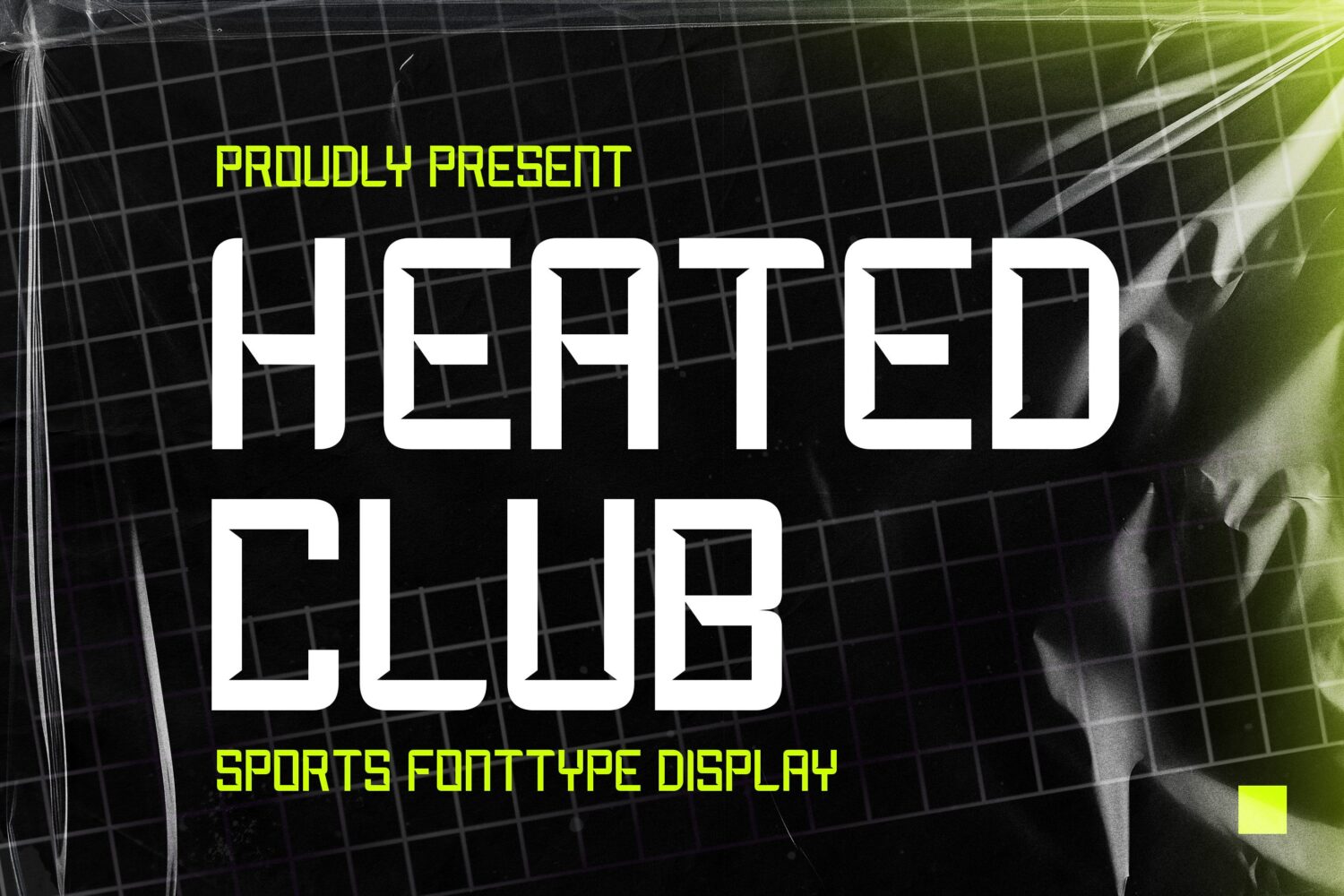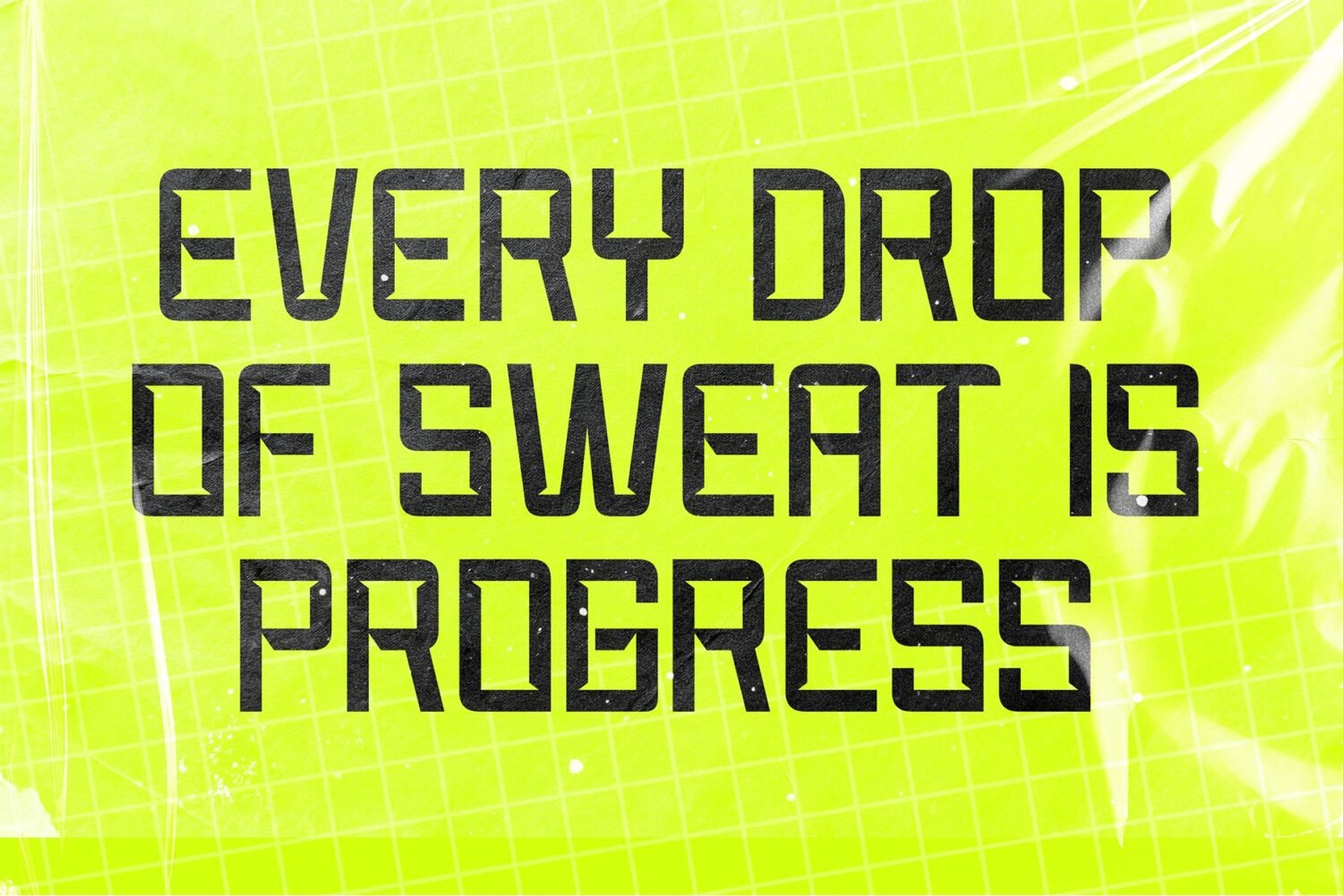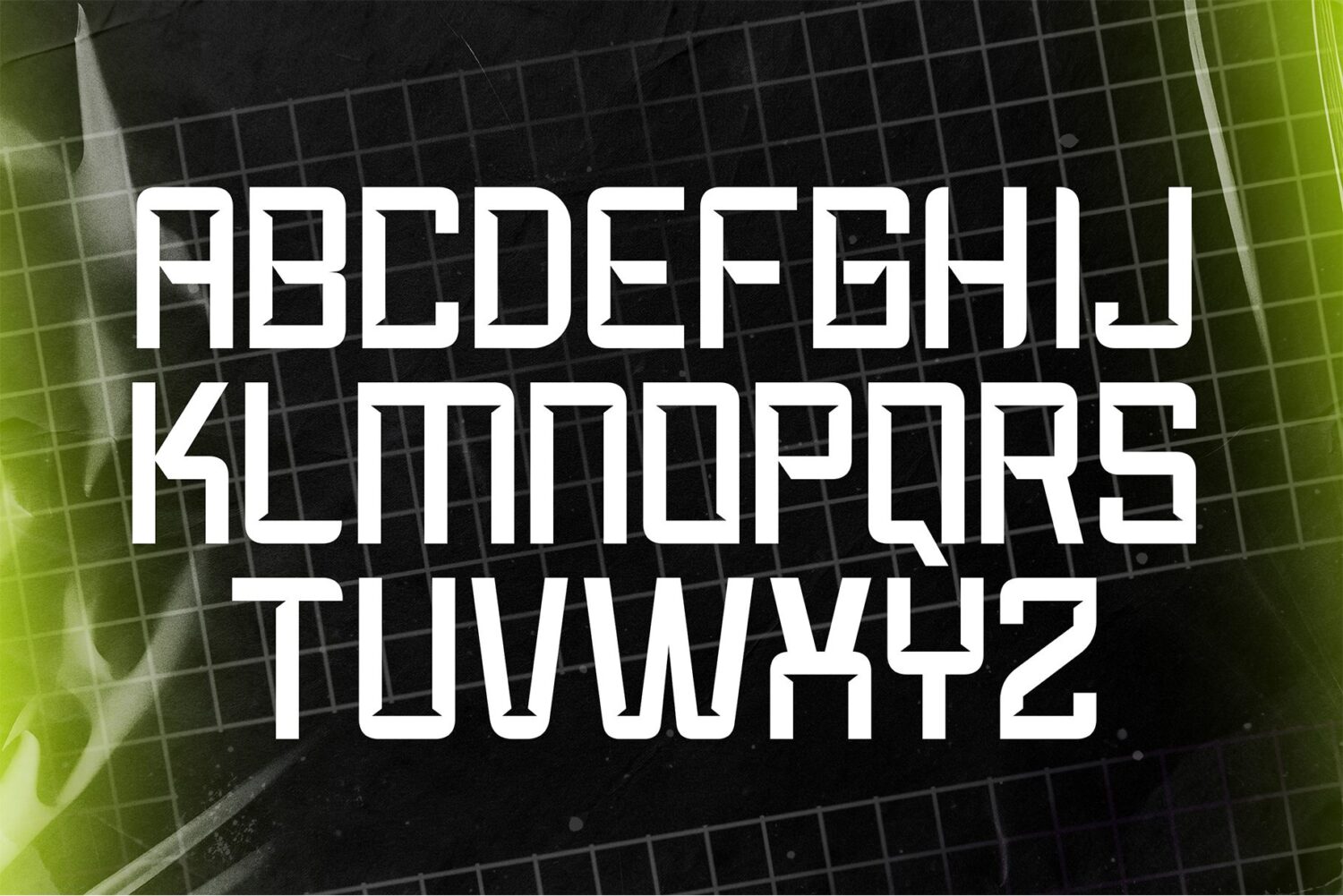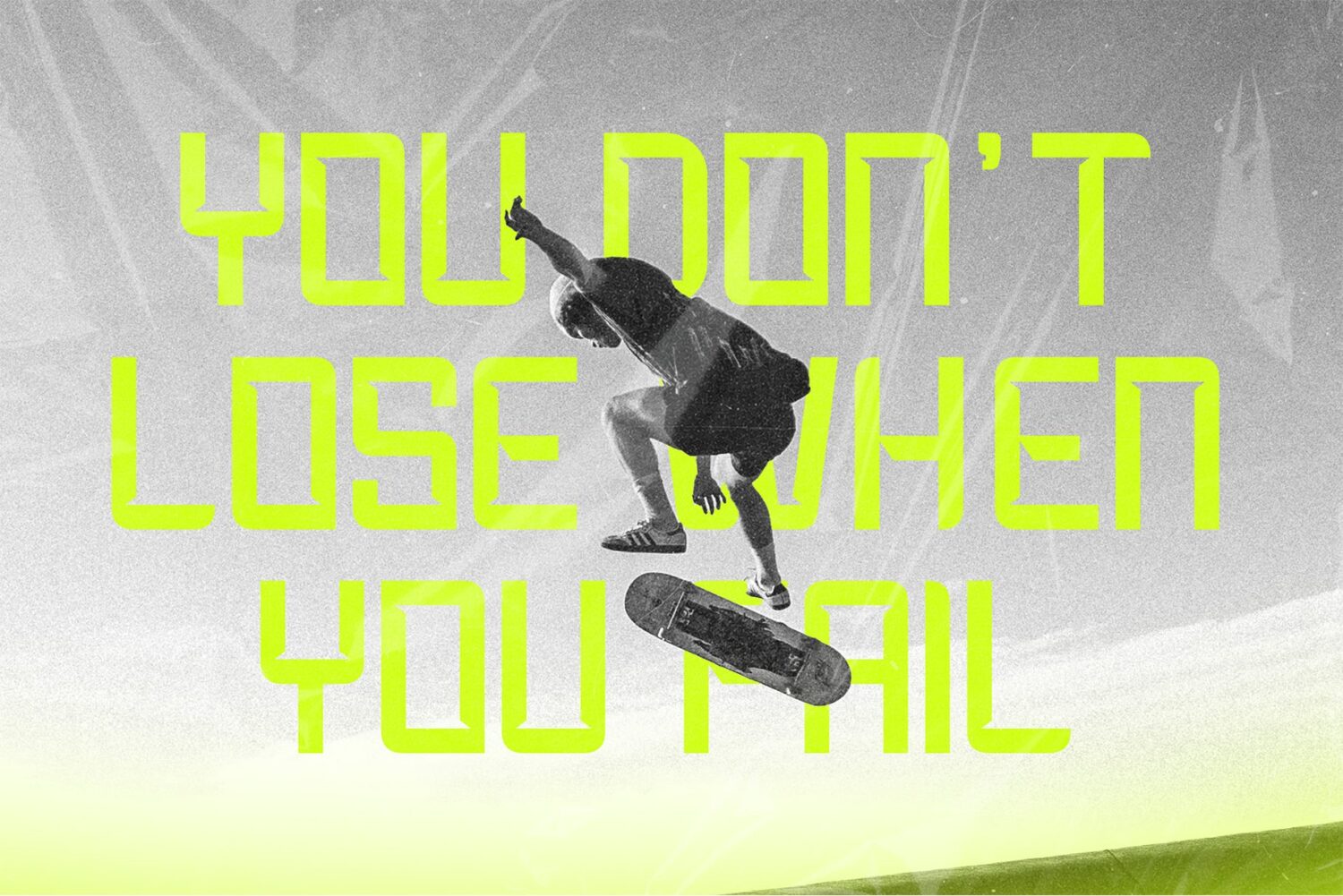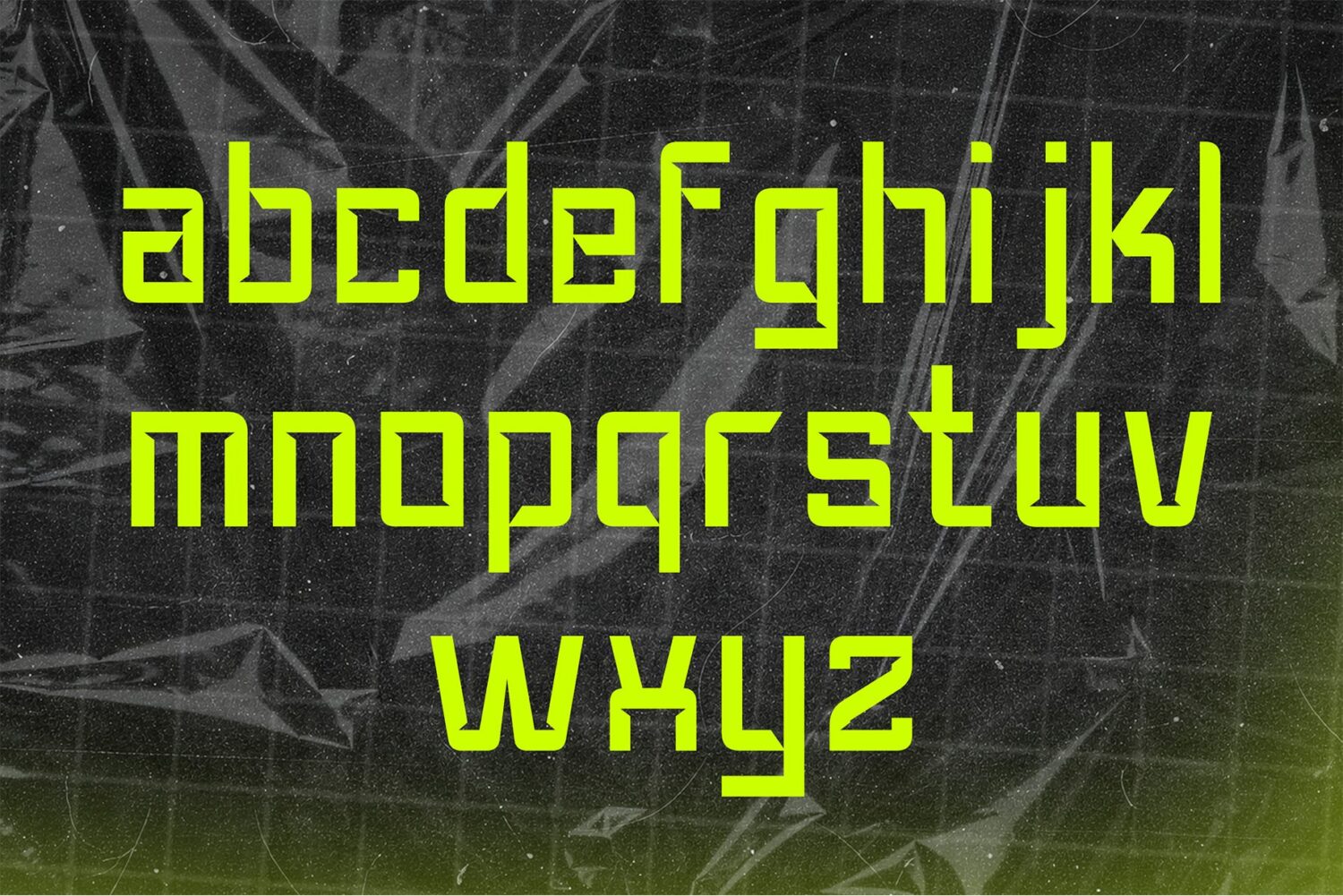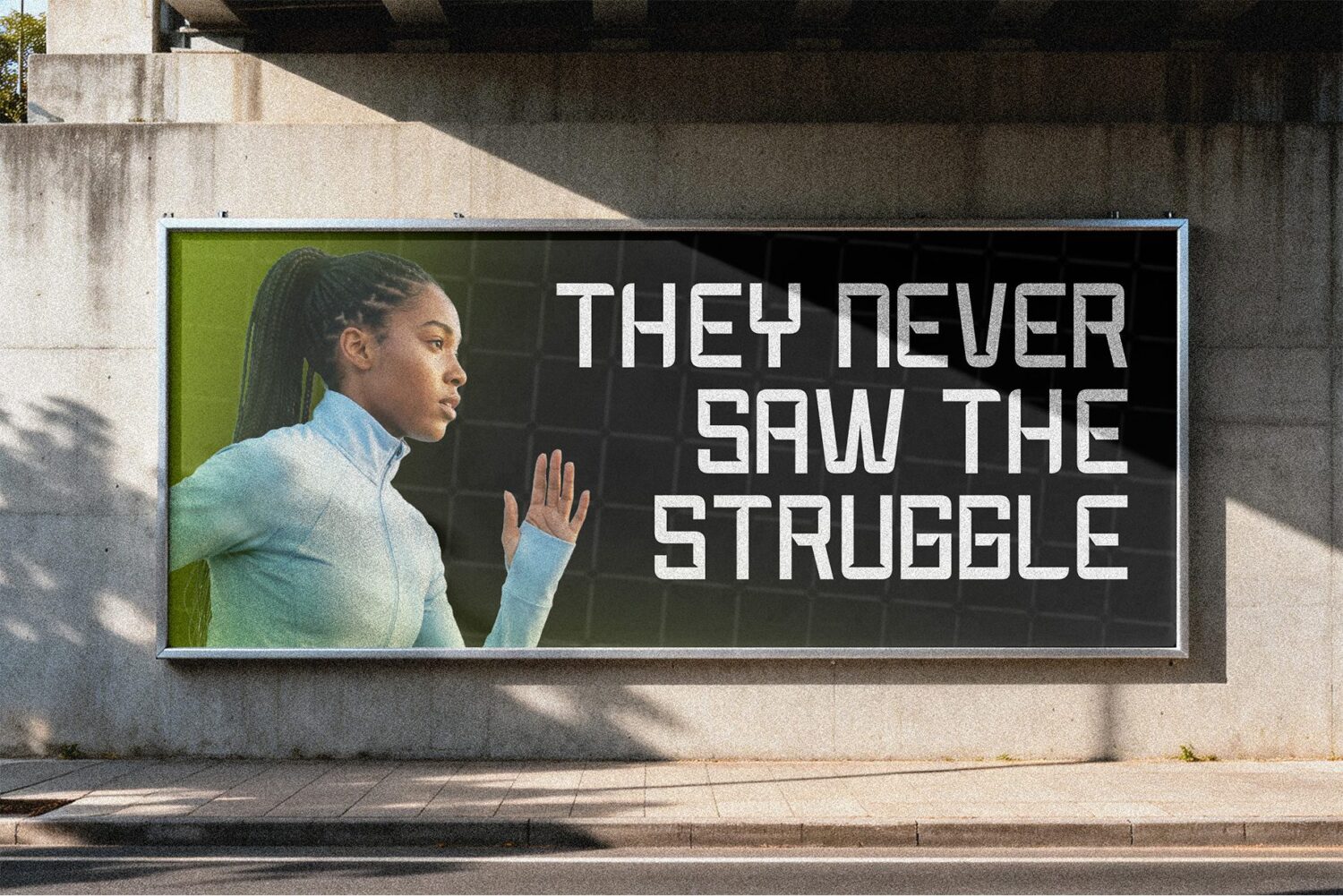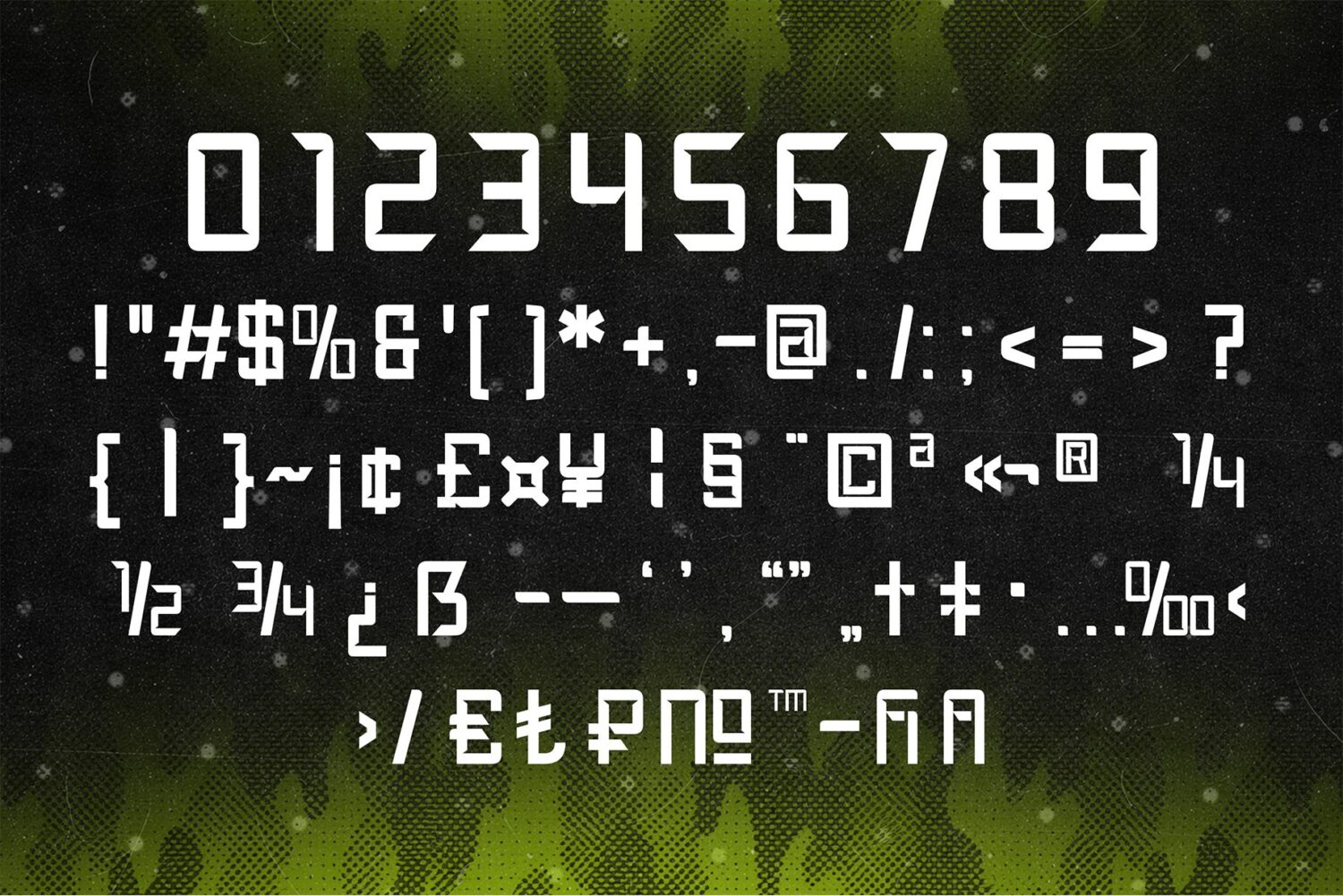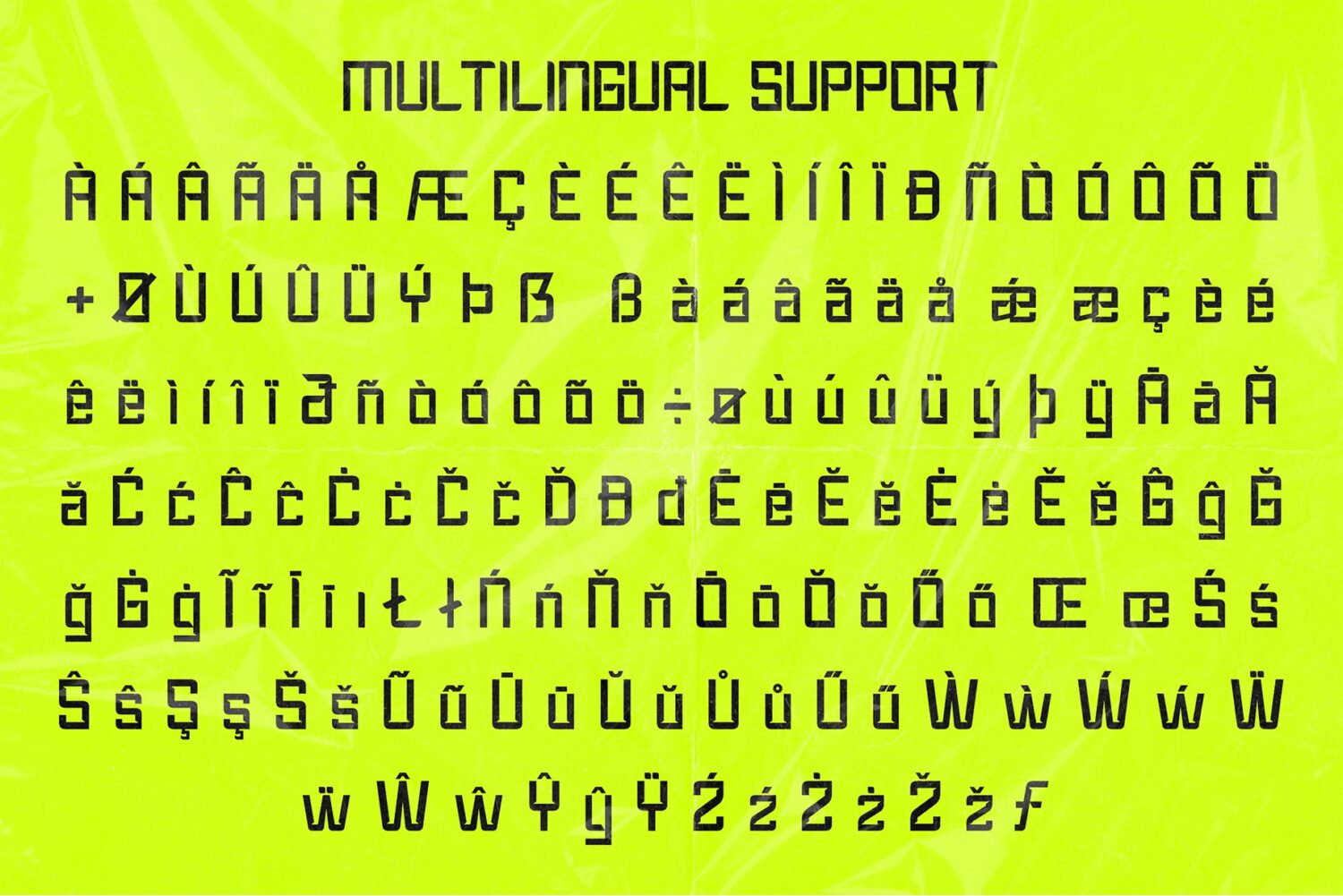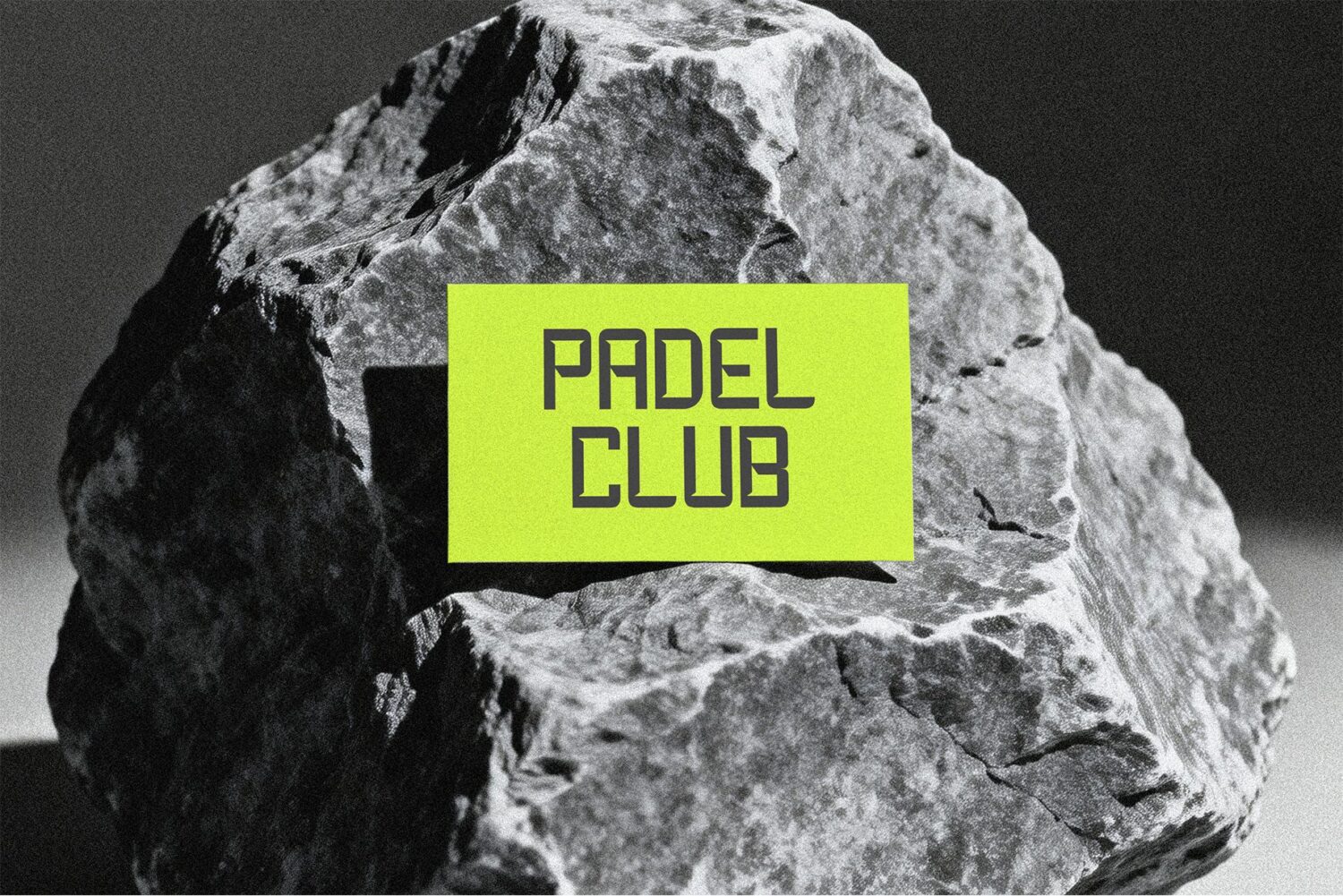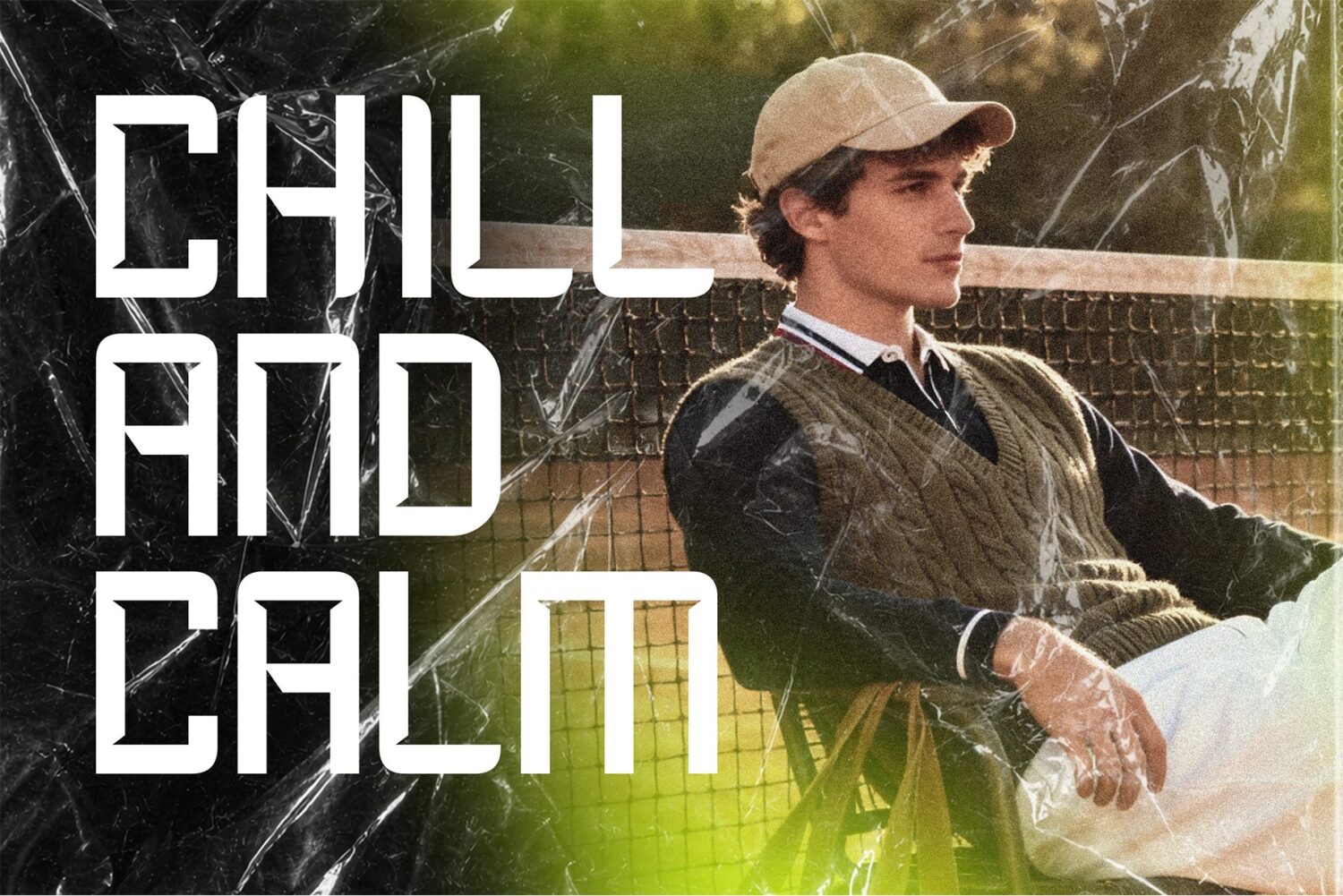
Heated Club is a modern sans-serif typeface designed with precision and intention. With its clean lines, balanced curves, and versatile form, Halfre brings a sense of quiet confidence to every composition — whether in branding, editorial layouts, UI design, or minimalist packaging.
Crafted to prioritize legibility and elegance, Halfre blends contemporary aesthetics with timeless simplicity. Each character is designed to speak clearly and effortlessly, making it the perfect choice for designers who value function without sacrificing style.
Whether you’re building a digital interface or refining a brand’s visual voice, Halfre delivers a crisp, modern tone that adapts seamlessly across mediums.
Feature :
– Uppercase
– Lowercase
– Numeral
– Functional
– Multilingual